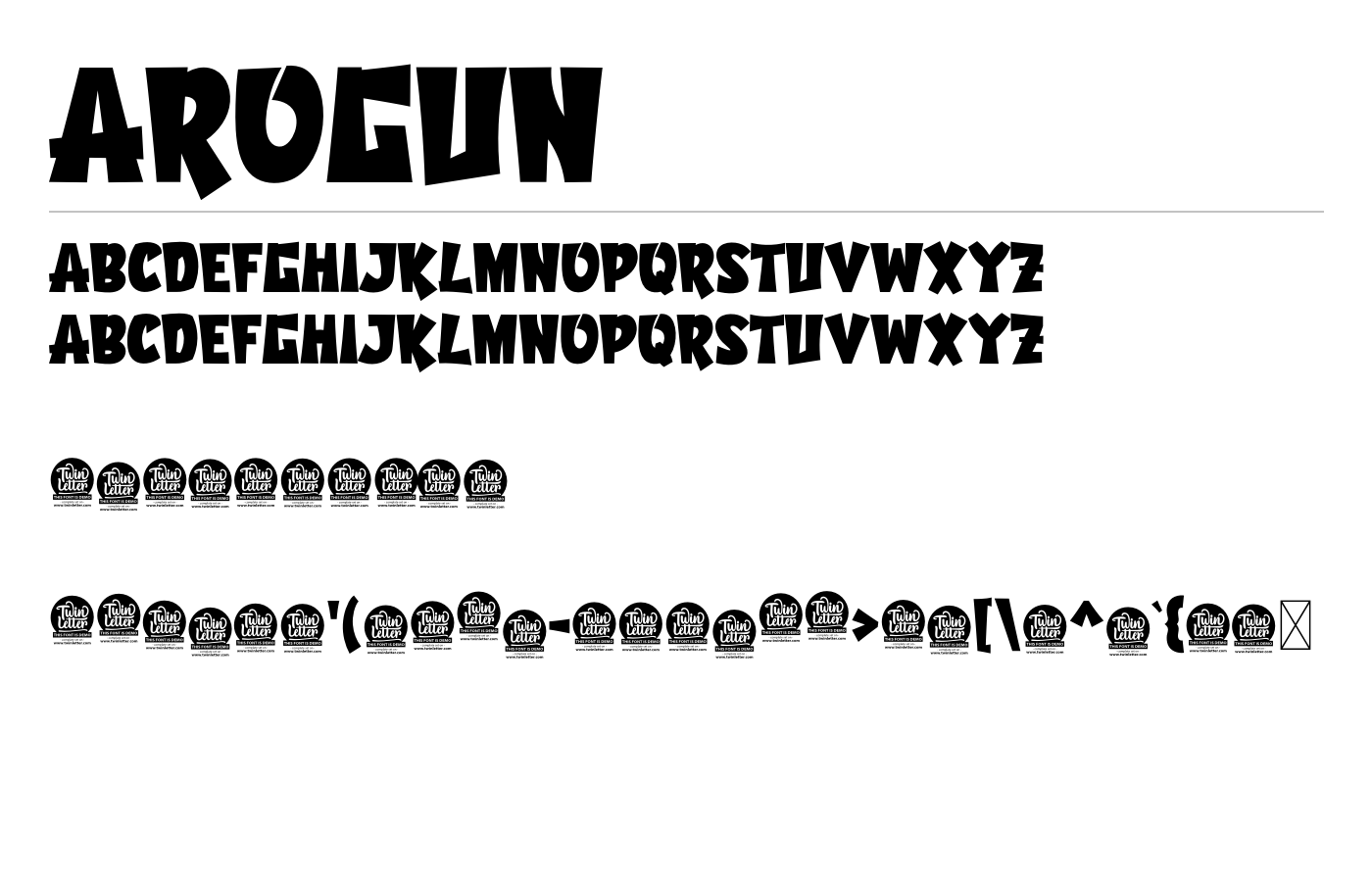
Arogun is a bold, playful display font with chunky, irregular letterforms that create a fun and energetic vibe. Its striking, blocky shapes with quirky angles give it a casual and informal personality, ideal for eye-catching headlines, posters, and branding that wants to convey creativity and approachability. This font works well in designs that need a memorable, dynamic look without compromising readability.
Arogun Font
About Arogun Font